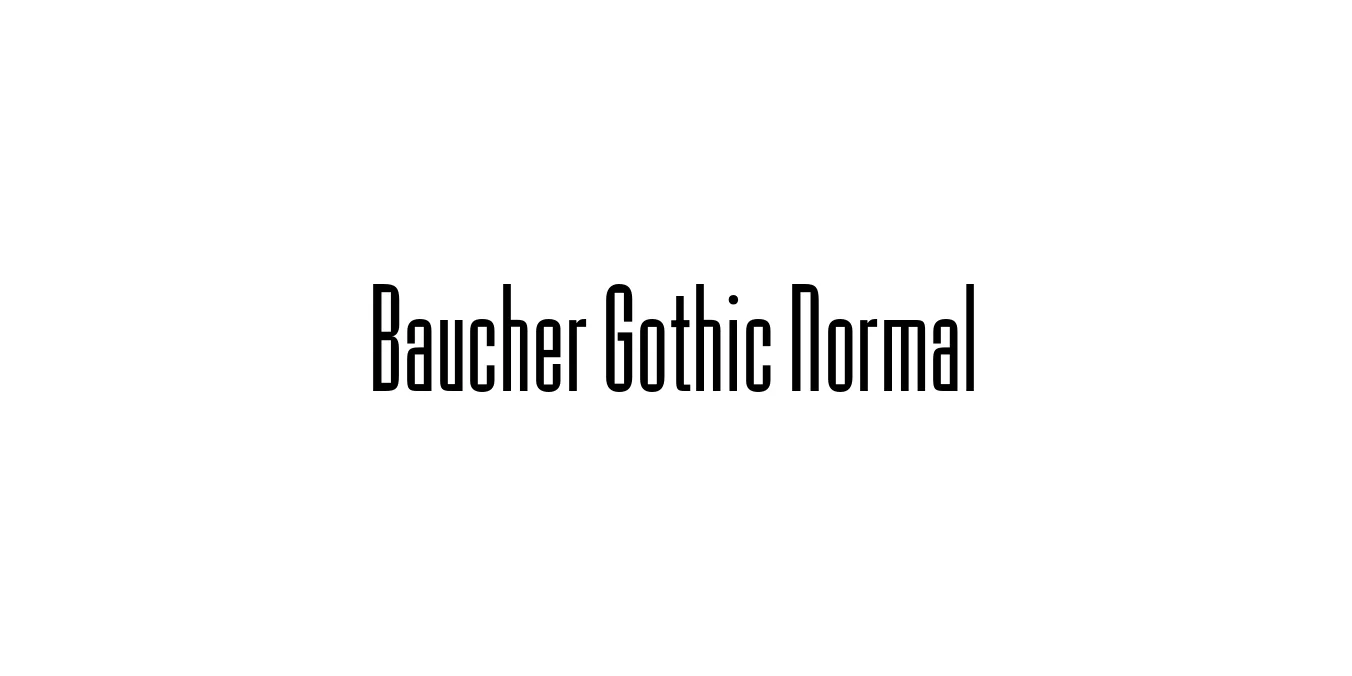
Baucher Gothic Normal
Designed by Mariusz Wlodarczyk
Baucher Gothic Normal is a meticulously crafted geometric sans-serif typeface that draws inspiration from the industrial aesthetics and European grotesques of the early 20th century. Its design philosophy centers on modern minimalism and functional clarity, featuring a high x-height and balanced stroke widths. This ensures that the typeface remains highly legible across various platforms, bridging the gap between historical structuralism and contemporary digital needs.
Developed by Mariusz Wlodarczyk for The Northern Block, Baucher Gothic was engineered to be a versatile workhorse for designers seeking professionalism and precision. The font's clean, open apertures and rigid geometric foundations make it particularly effective for technical documentation and corporate communications. Its neutral yet sophisticated tone allows it to adapt to diverse environments, from high-end fashion branding to complex data-heavy interfaces.
Baucher Gothic Normal Best Uses
Perfect for professional logos, business stationery, and brand style guides.
Highly effective for magazine layouts, brochures, and sophisticated body copy.
Offers excellent legibility for mobile applications and modern web interfaces.
Ideal for clean, impactful headlines and promotional marketing materials.